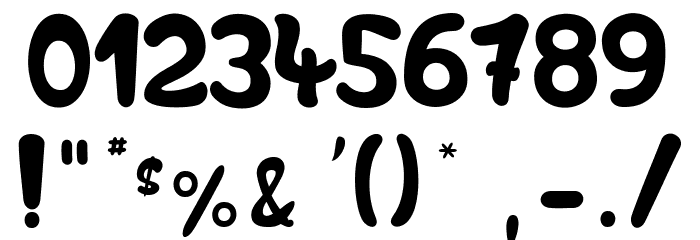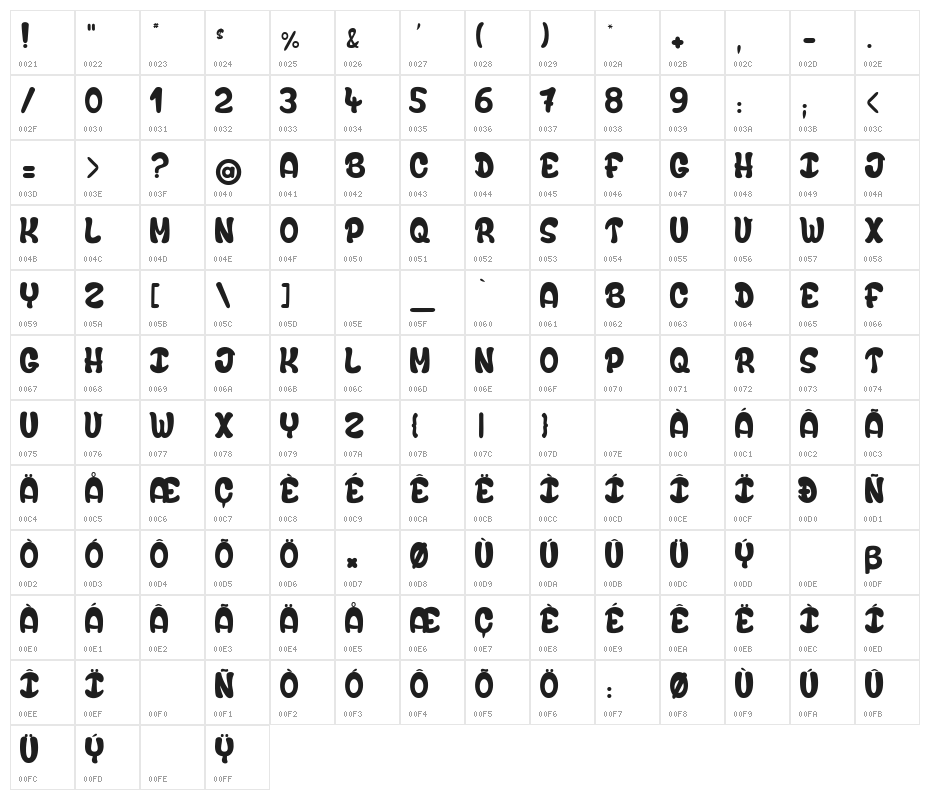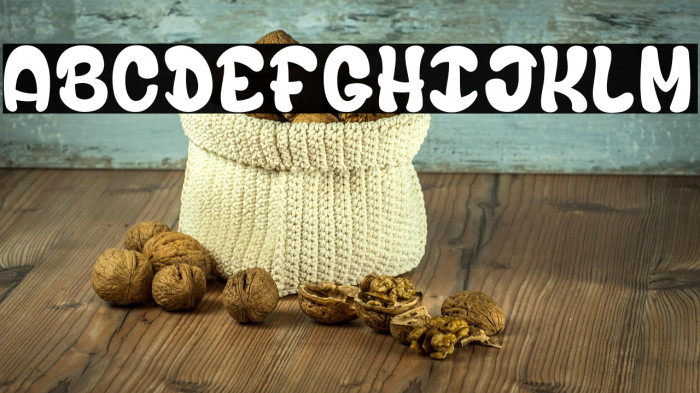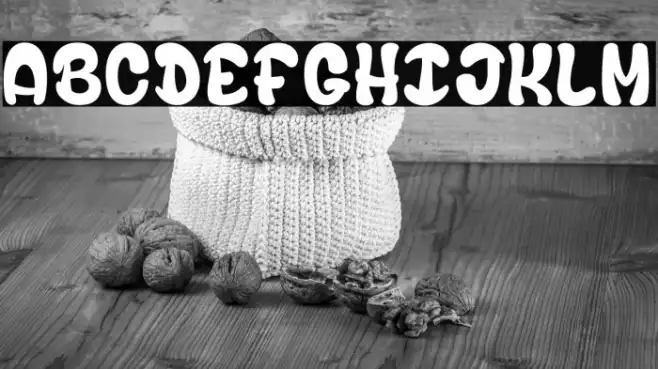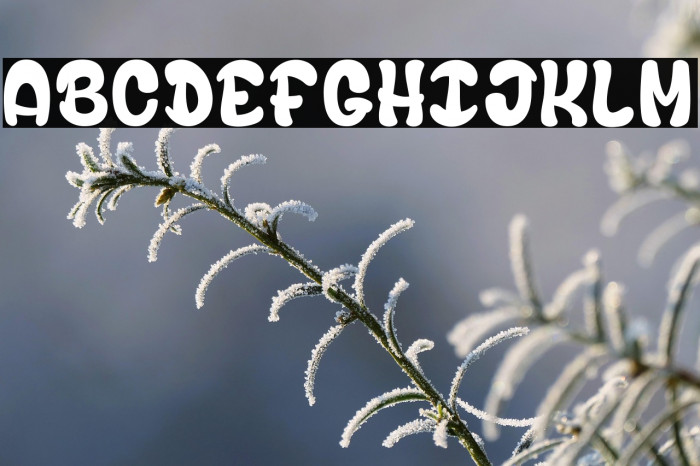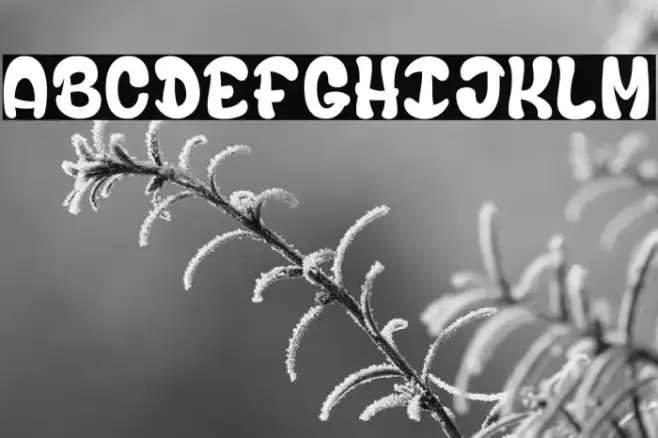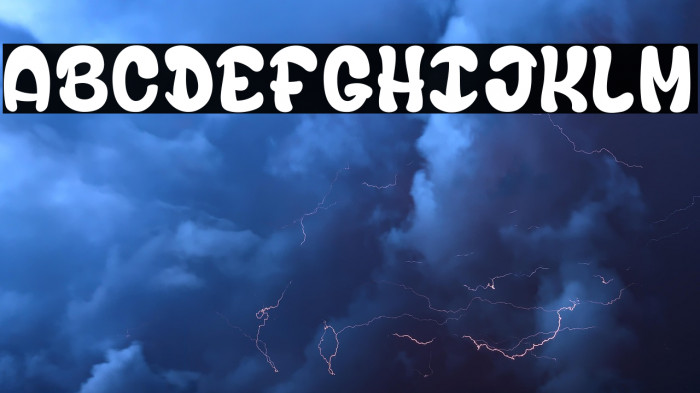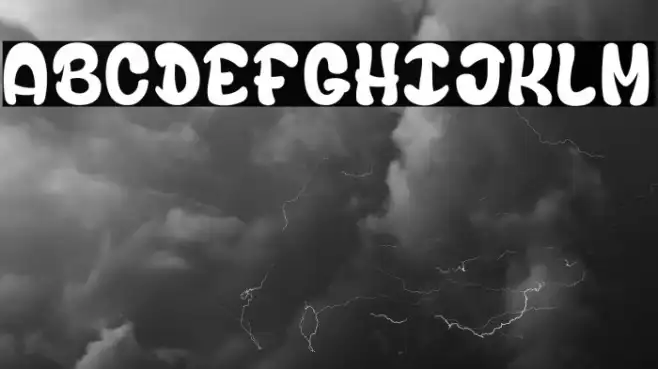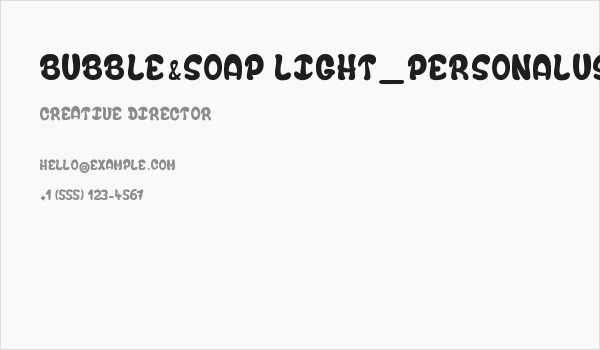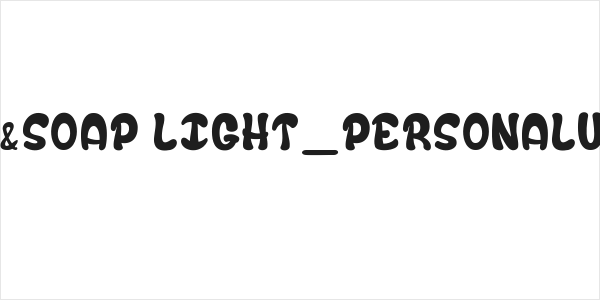
Bubble&Soap light_PersonalUseOnly Font
Bubble&Soap light_PersonalUseOnly Description
This playful and whimsical font features rounded, bubbly characters that exude a sense of fun and lightheartedness. The letters are bold and have a consistent thickness, creating a uniform appearance that is both eye-catching and easy to read. The font's style is reminiscent of soap bubbles, with smooth curves and a soft, approachable aesthetic. It includes a full set of uppercase and lowercase letters, numbers, and a variety of special characters, making it versatile for various design needs. The overall look is modern yet playful, suitable for projects that require a touch of creativity and joy.
| Overall Style | Playful, Modern |